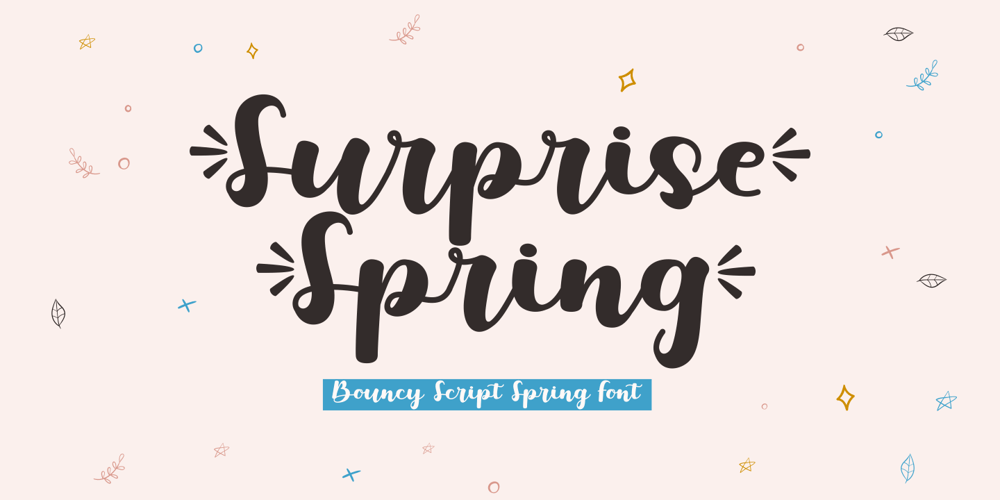
Surprise Spring Font Family was designed by Putra Novembria Candra Kusuma and published by Putracetol. Surprise Spring contains 1 styles and family package options. Introducing a bouncy script font called “Surprise Spring”, a bold script with unique element added for each character and alternates. Come with open type feature with a lot of alternates, its help you to make great lettering.Surprise Spring is perfect for logotype creation, crafting, quote, lettering compositions, wedding invitations, fashion projects, book design cover, magazines typography, cards, packagings, posters, branding and more.This font is also support multi language.